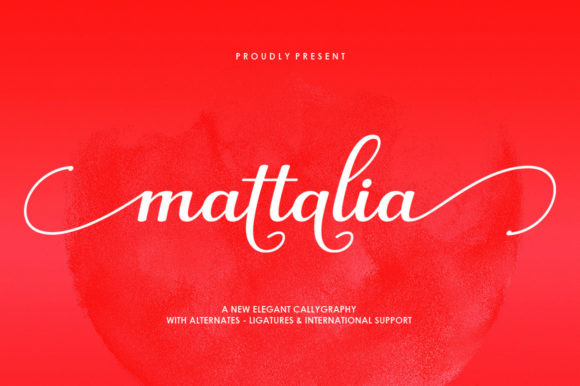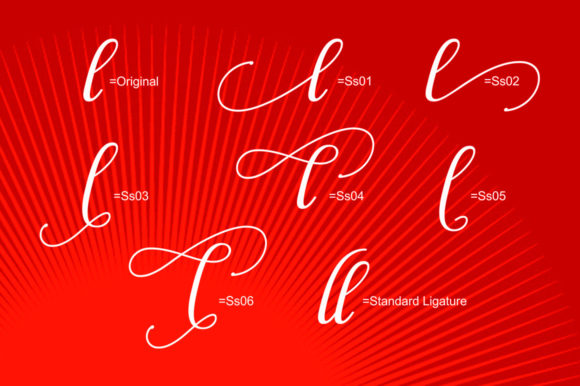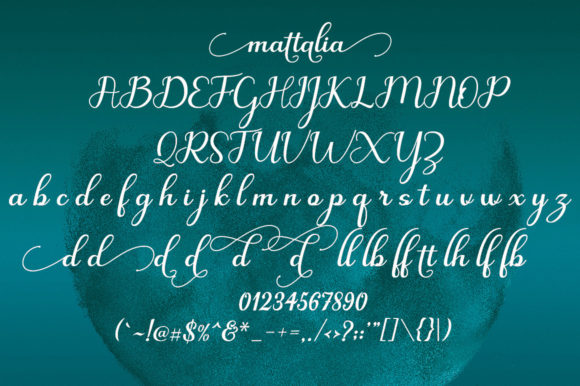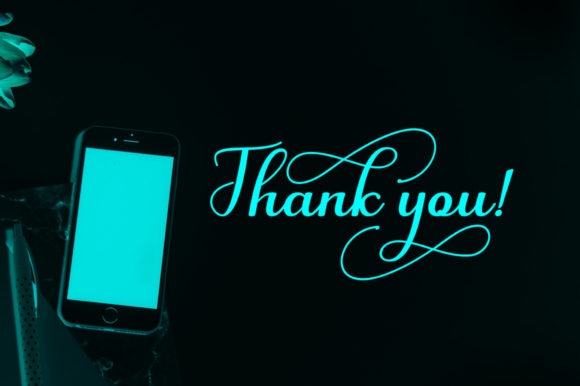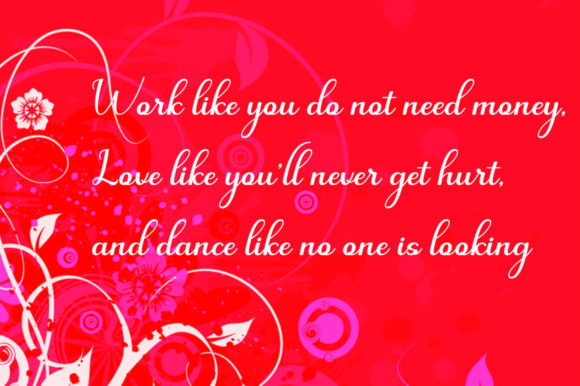
About Mattalia Font
Mattalia is a modern and elegant handwritten font. Its distinct and well rounded letters make this font a masterpiece. Fall in love with its incredibly versatile style and use it to create spectacular designs! This font is PUA encoded which means you can access all glyphs and swashes with ease!